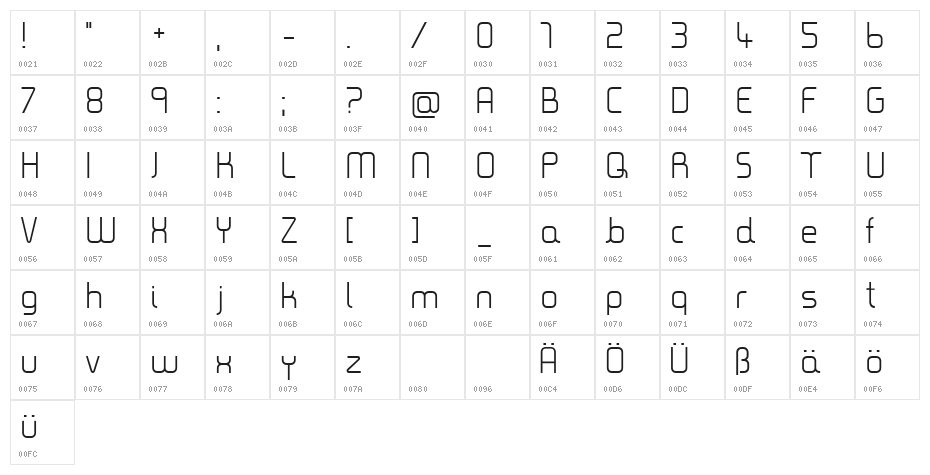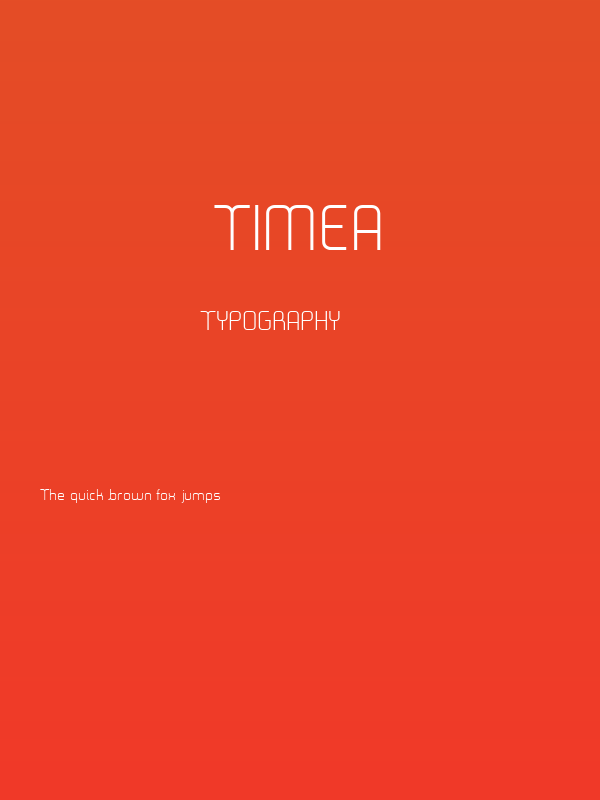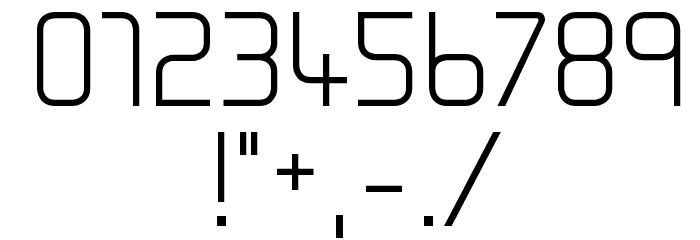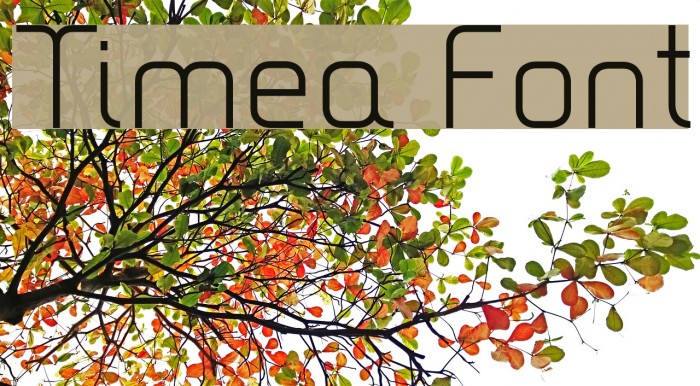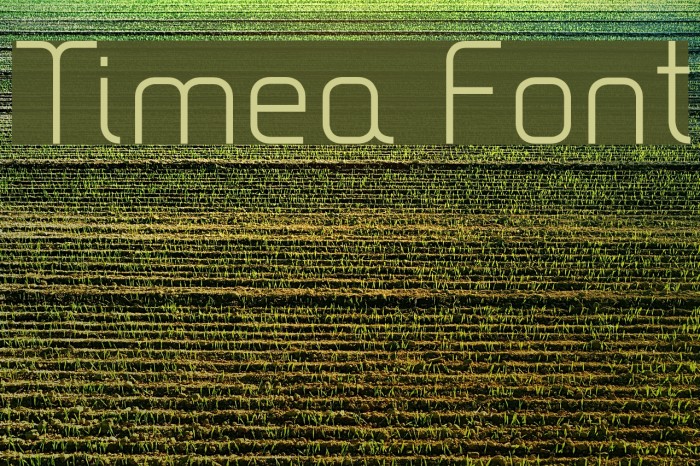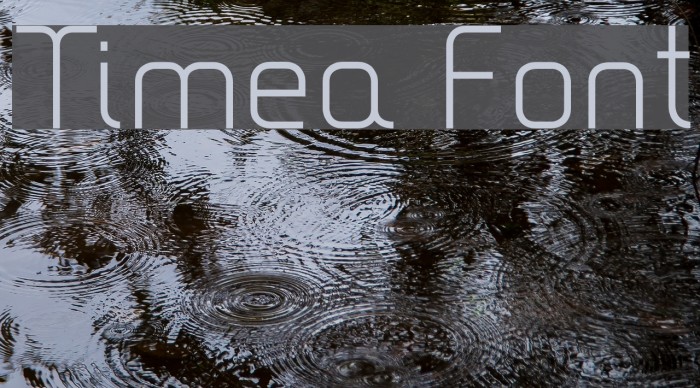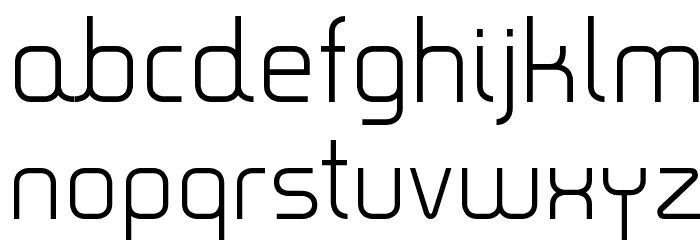
Timea Font
Timea Description
This font features a clean and modern aesthetic with a geometric structure. The characters are uniform in width, creating a harmonious and balanced appearance. The uppercase letters are tall and slightly condensed, while the lowercase letters maintain a consistent height, enhancing readability. The numerals are distinct and align well with the overall style, making them suitable for both display and text settings. The special characters are designed to complement the alphanumeric characters, ensuring a cohesive look across different uses.